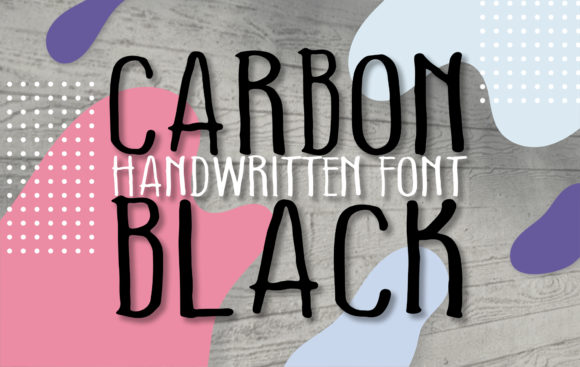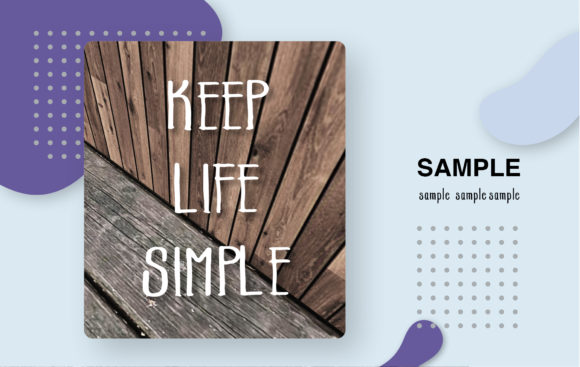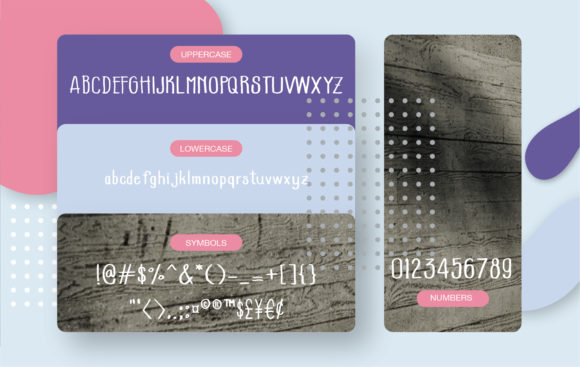
Carbon Black Font
About Carbon Black Font
Carbon Black is a strong and unique script font. It’s great for posters, headlines, quotes, merchandising and much more!